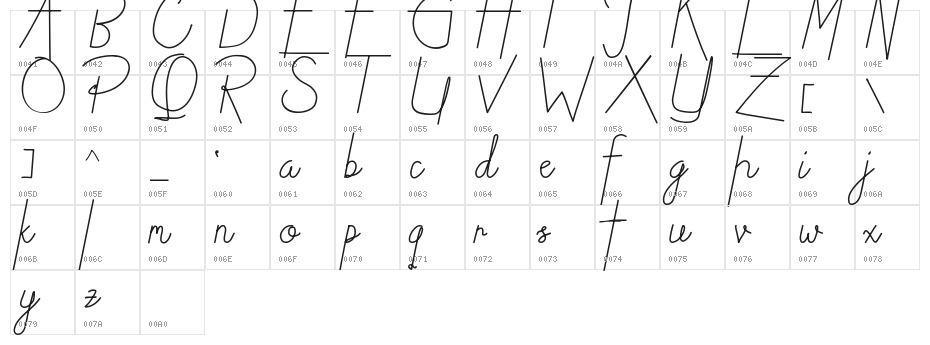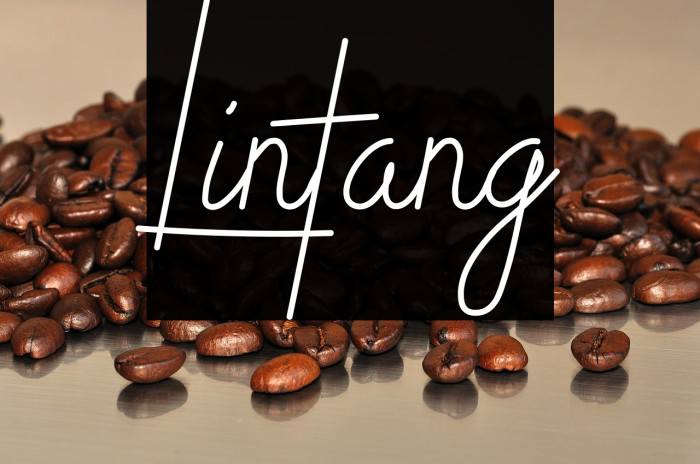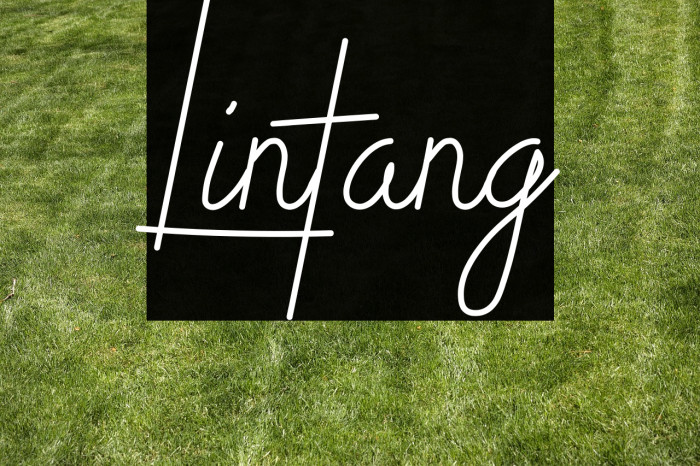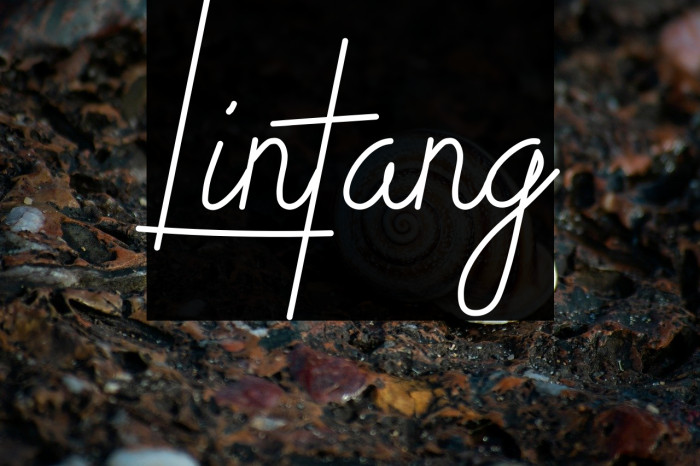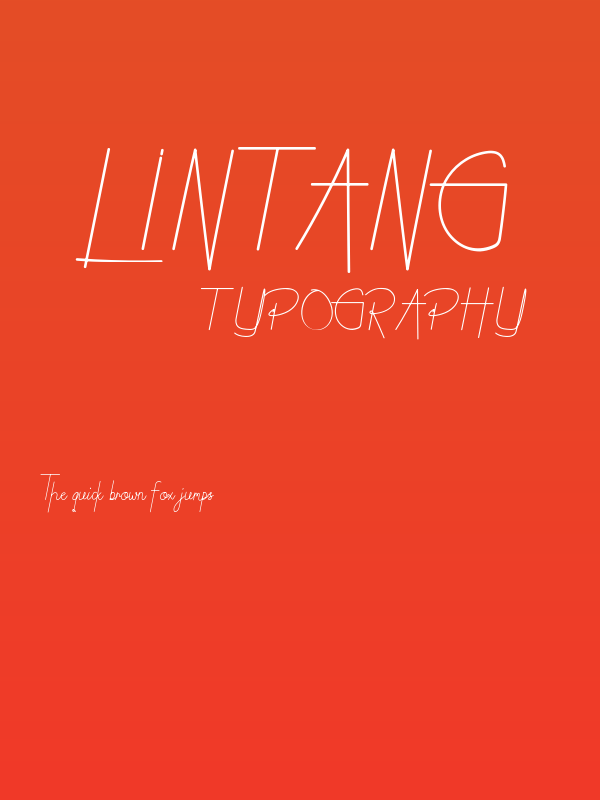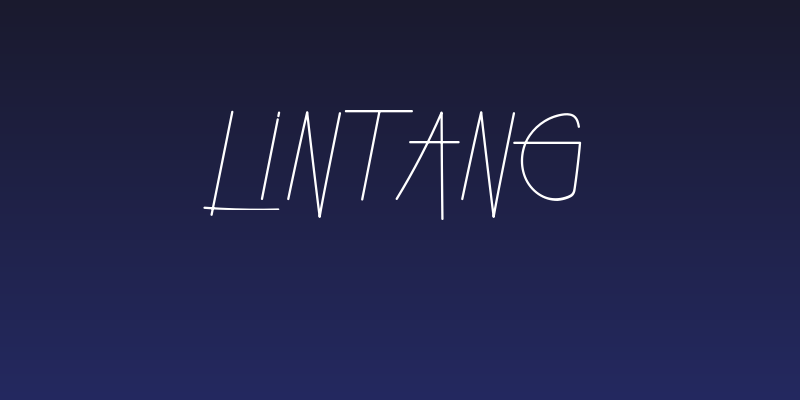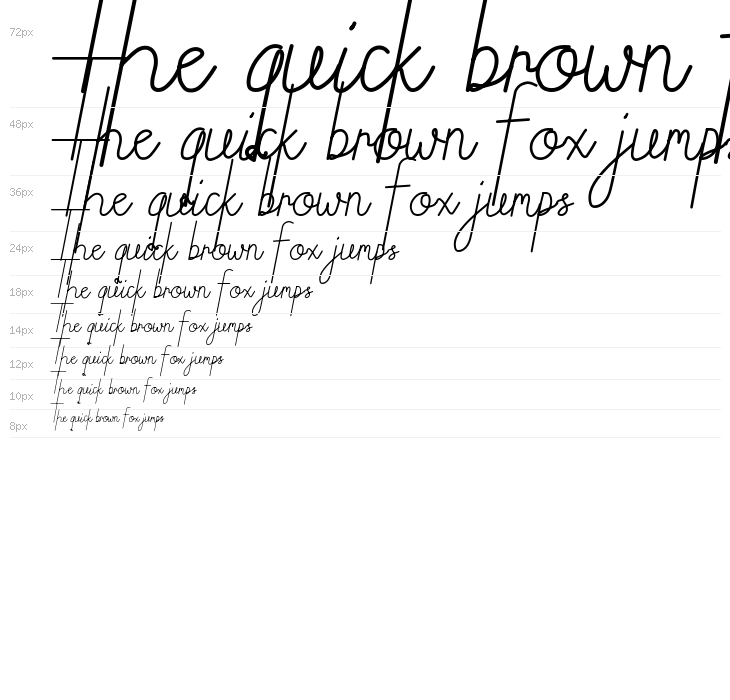
Lintang Font
Lintang Description
This font features a unique blend of geometric and handwritten styles. The uppercase letters are characterized by thin, elongated strokes with a modern, minimalist aesthetic. The lowercase letters exhibit a more fluid, cursive style, adding a touch of elegance and personality. The numerals and special characters maintain the geometric theme, ensuring consistency across the typeface. This combination of styles makes it versatile for various design applications.
Use CaseLogos, Invitations, Editorial Design
Proposed ProjectsIdeal for branding projects, invitations, and editorial design where a modern yet personal touch is desired.